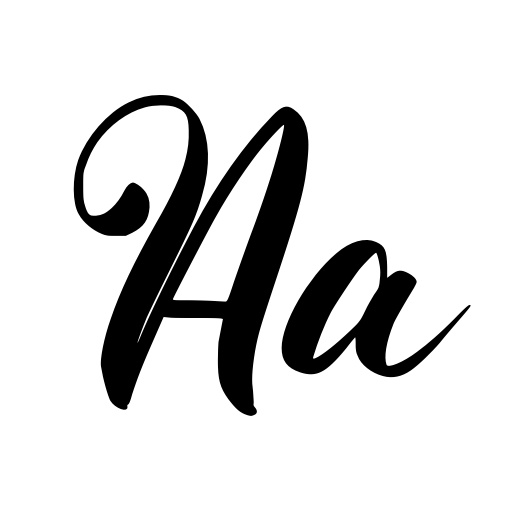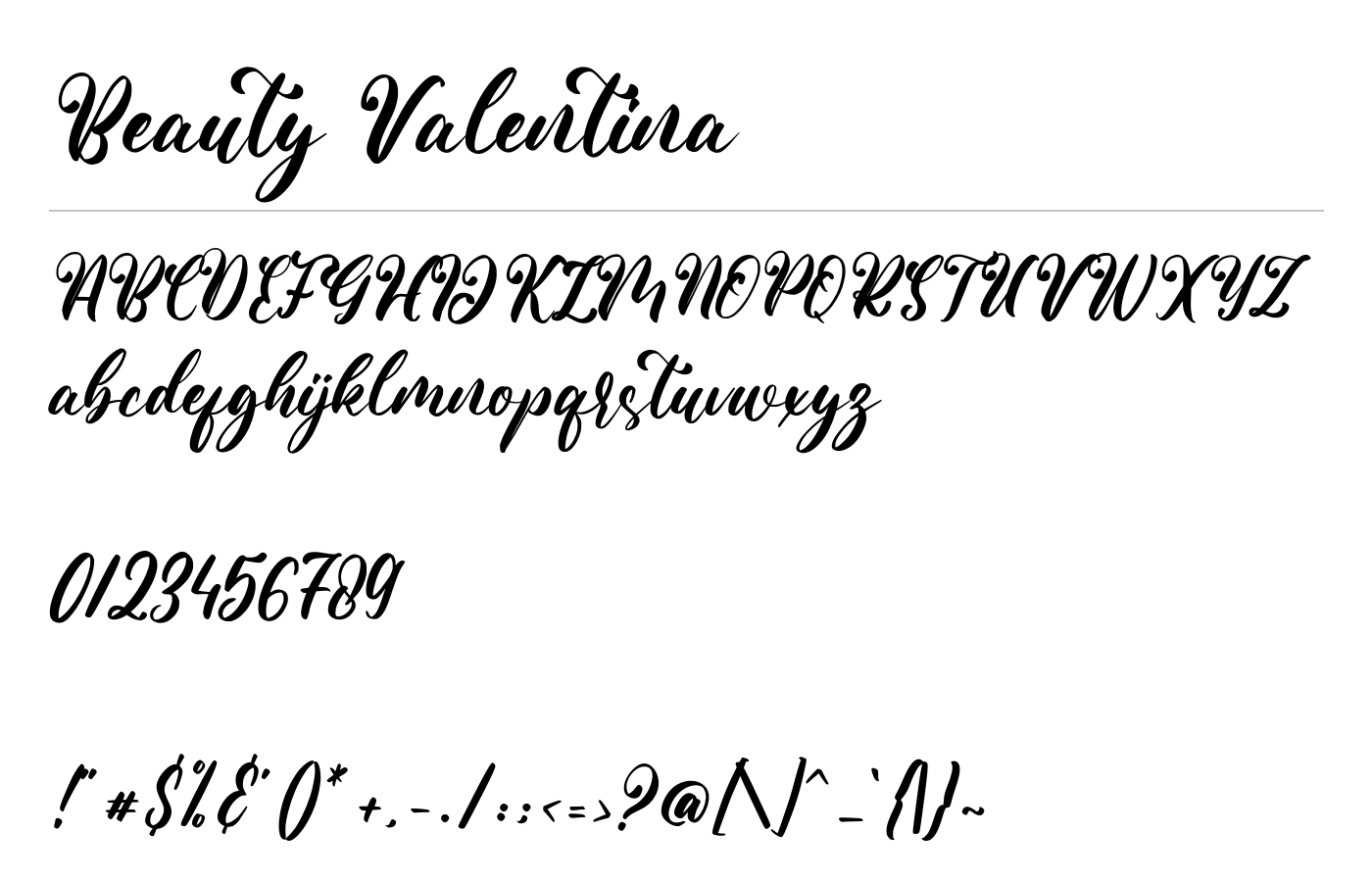
Beauty Valentina is a stylish script font with elegant, flowing strokes and a moderate contrast that gives it a refined yet approachable feel. Its smooth, connected letterforms and slightly condensed structure make it perfect for feminine branding, invitations, and beauty-related designs that seek a sophisticated and graceful touch. This font shines in headlines and logos where an elegant, modern handwritten aesthetic is desired.
Beauty Valentina Font